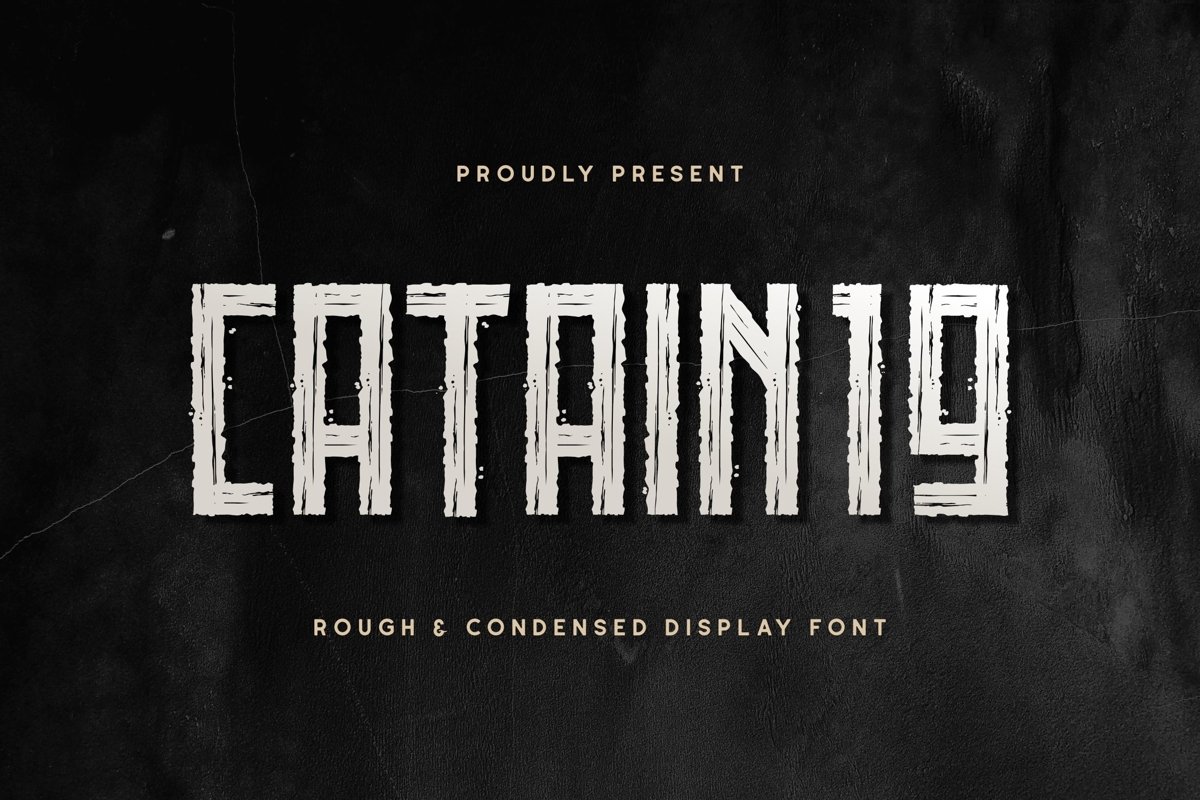
CATAIN19 Brush Sans suitable for some designs such as the logotype, brand, packaging, quotes, music poster, t-shirt, cover book and more custom design. The features uppercase, lowercase, numeral, punctuation & symbol, multilingual support.